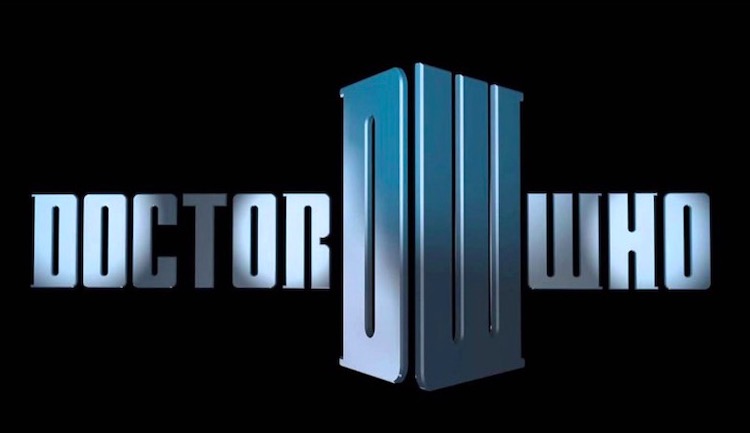
There are many special fonts associated with popular TV shows or movies. The Doctor Who font is no exception. Users can easily see the familiar Doctor Who font if they are a fan of movies in the sci-fi genre.
Why do we say that, the Doctor Who font is actually the font designed for the title of the sci-fi movie Doctor Who. This is a science fiction film invested and produced by the BBC and it has attracted a lot of audiences at home and abroad in the UK. The original font for this movie title design is called Doctor Who with design touches that are full of personality and give the brand a distinct character.
Doctor Who is a fancy font with high contrast, it can be the basis of development as well as fame associated with the brand you intend to build your own.
Doctor Who logo font